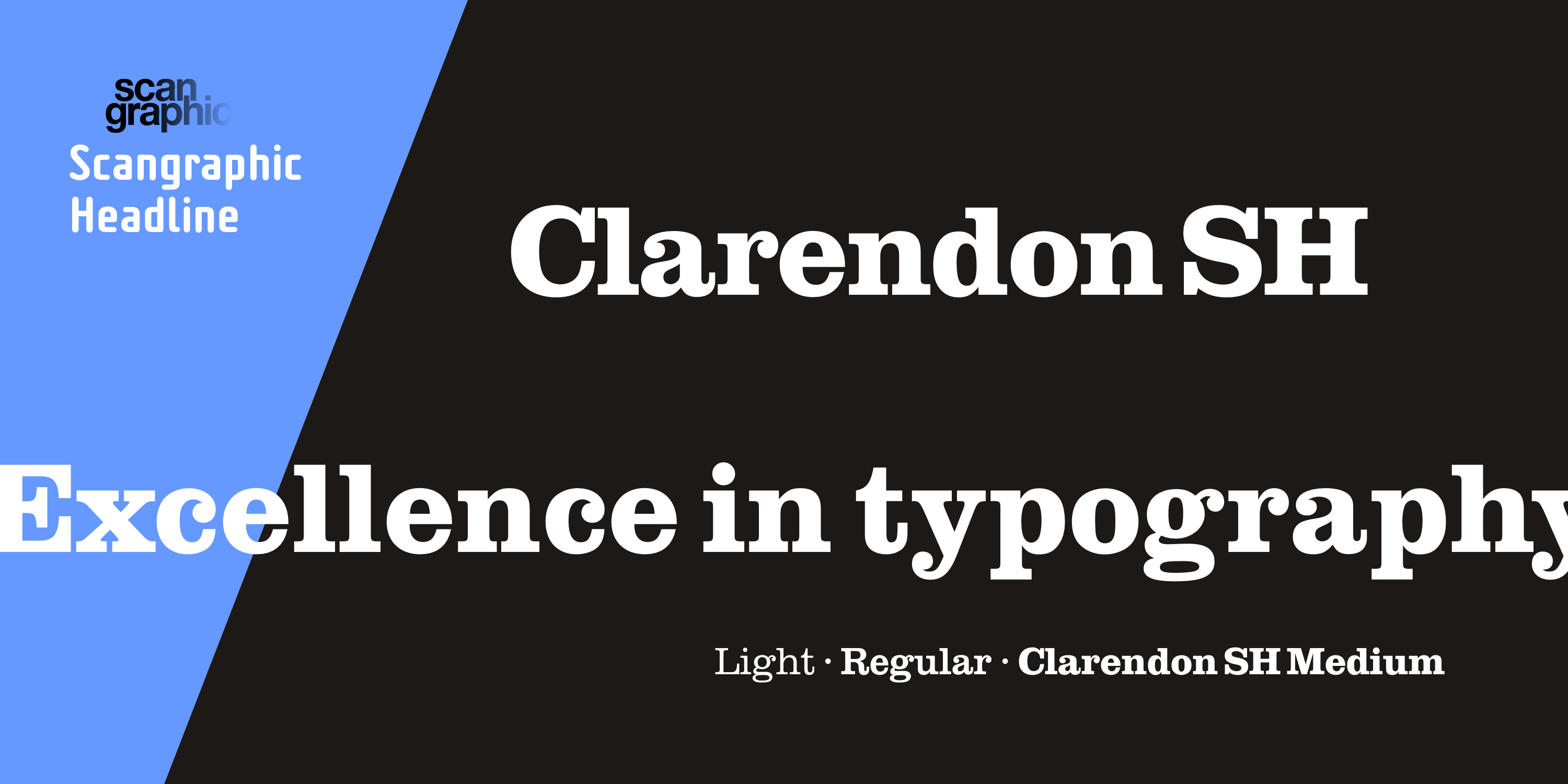
The Clarendon SH Font is a distinguished and iconic slab serif typeface, renowned for its sturdy construction, clear readability, and timeless appeal. Its robust and confident letterforms make it an excellent choice for projects requiring a sense of reliability, tradition, and strong visual presence. Imagine Clarendon SH Font gracing the masthead of a reputable newspaper, adding an authoritative touch to museum signage, or providing a classic yet impactful feel to branding for established institutions and heritage brands. It's incredibly effective for creating bold headlines, robust logos, and any display text where clarity, strength, and a touch of vintage charm are paramount. If your project demands a typeface that is both enduring and highly legible, the Clarendon SH Font is an exceptional choice.
What makes the Clarendon SH Font so exciting? Its appeal lies in its historical significance and its enduring legibility. As one of the original slab serifs, it possesses a unique blend of industrial strength and refined elegance. The prominent, block-like serifs give it a strong anchor, ensuring stability and clarity even at a distance. The Clarendon SH Font communicates a sense of tradition, trustworthiness, and an unwavering presence. It’s a typeface that has stood the test of time, proving its versatility and effectiveness across countless applications, making your designs feel both classic and undeniably impactful.
The Clarendon SH Font family typically offers a range of weights and styles to enhance its versatility for various design needs. While specific offerings may vary, you can generally expect to find crucial styles such as Clarendon SH Regular, Clarendon SH Bold, and potentially Clarendon SH Light or Clarendon SH Heavy for different levels of emphasis. Some versions might also include Clarendon SH Italic for stylistic variations. These different weights are crucial for establishing clear typographic hierarchies, allowing you to create powerful headlines and legible subheadings while maintaining the font's characteristic strength and visual consistency. The availability of multiple weights ensures that the Clarendon SH Font can be adapted seamlessly to different applications, from subtle details to dominant features. For your projects, remember to utilize the Clarendon SH Font Free Download for preliminary testing, and ensure proper licensing for all commercial uses.